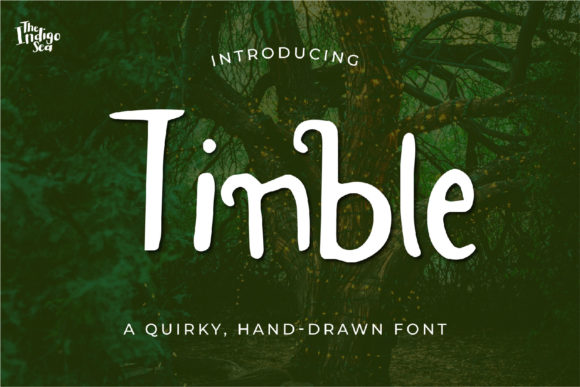
Embark on an enchanting expedition into the heart of nature, where Tinble's graceful strokes evoke the allure of untamed landscapes. Its meticulously crafted characters dance across the page like whispers of the wind rustling through leaves, capturing the essence of serene meadows, tranquil forests, and babbling brooks.
Unleash your creativity and let Tinble guide you as you weave captivating tales of sylvan adventures, inspiring eco-friendly initiatives, and breathtaking travelogues. Its effortless flow and organic charm add a touch of authenticity to any project, whether it's a nature-inspired logo, an earthy social media post, or an awe-inspiring website.
With Tinble as your creative companion, your words will blossom into vibrant expressions of nature's beauty. Engage your audience with enchanting invitations to outdoor events, design captivating brochures that ignite wanderlust, or craft heartfelt messages that resonate with those who cherish the natural world.
Embrace Tinble, the font that unlocks the boundless beauty of nature, and witness how your creative endeavors flourish like wildflowers in the springtime. Dive into a world of verdant hues, gentle breezes, and tranquil moments, and let Tinble be your faithful companion on this extraordinary journey.